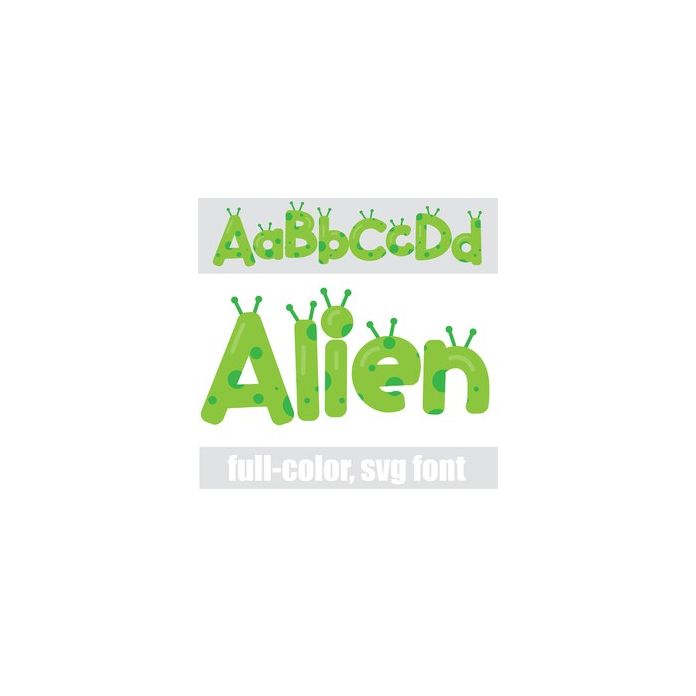
This full-color font features antenna and spots. There is an alt case w/ additional colors you can access through your system or Silhouette's glyph map.